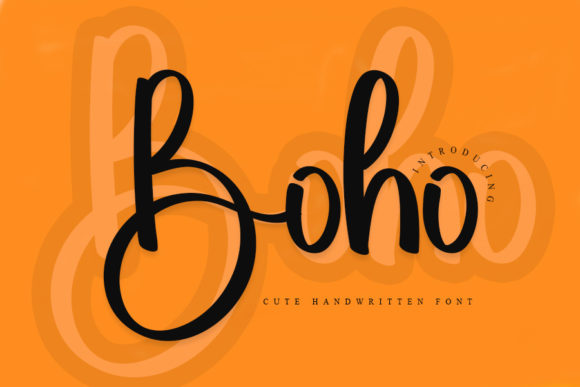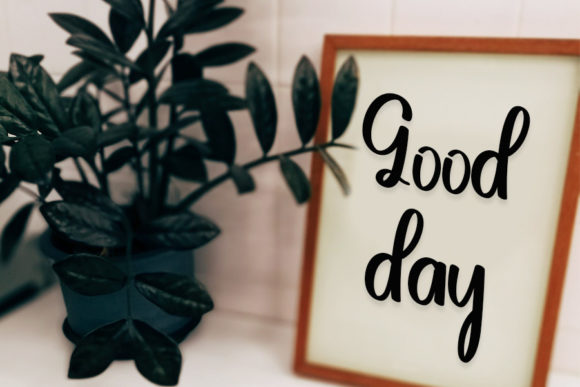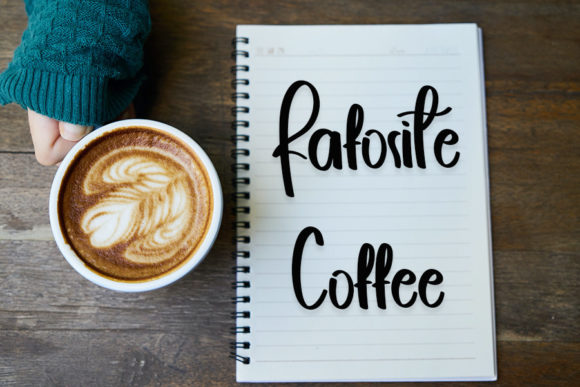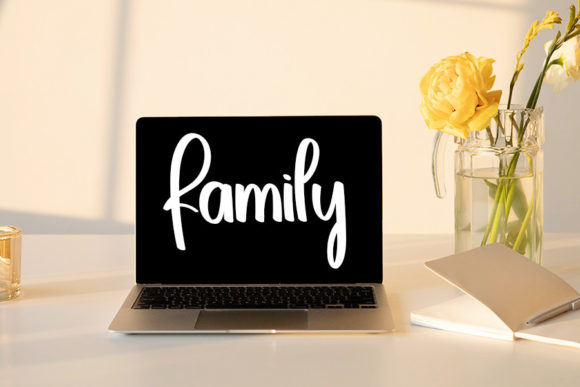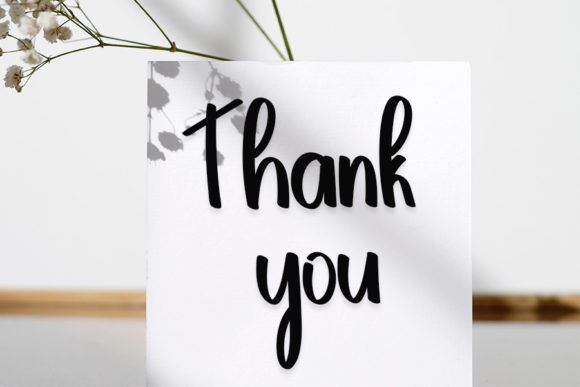
About Boho Font
Boho is a slim and delicate handwritten font that exudes a dainty and joyful essence. This font is an ideal choice for projects that require a romantic and personalized touch, such as writing wedding invitations, cards, or any other design where a tender and individualized aesthetic is desired.
The slim design of Boho imparts a refined quality to the handwritten script, creating a look that is both sophisticated and charming. Each character is delicately crafted, contributing to the font’s overall grace and elegance.
Whether you’re crafting wedding invitations, designing heartfelt cards, or working on projects that demand a romantic and personal feel, Boho enhances the emotional tone with its personalized and gentle quality. The font captures the essence of romance, making it a perfect choice for conveying love and joy.
Boho’s delightful handwritten style adds a unique and intimate touch to your designs. Its versatility allows it to adapt seamlessly to various applications, ensuring a harmonious and personalized aesthetic in every context.
Choose Boho to infuse your projects with the sweetness and delicacy of a slim and delicate handwritten script. Let this font be the perfect companion for expressing romance and joy, turning your designs into heartfelt and memorable creations.